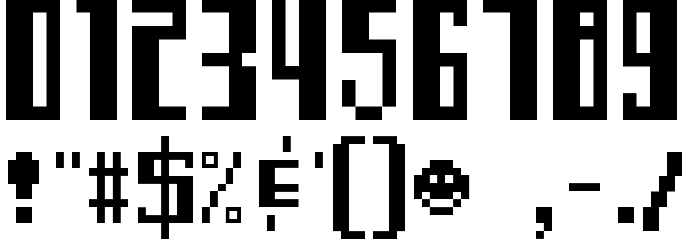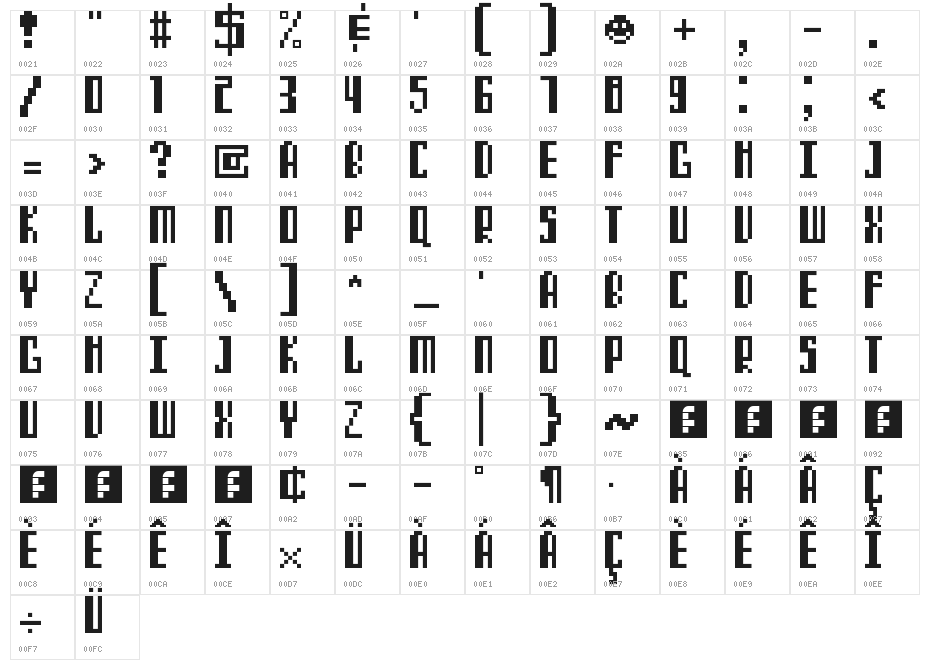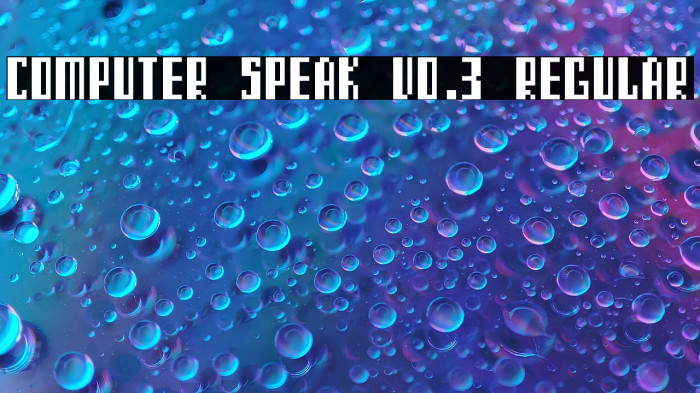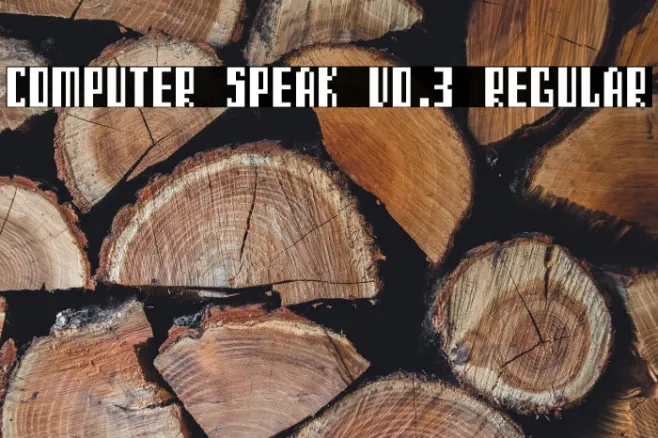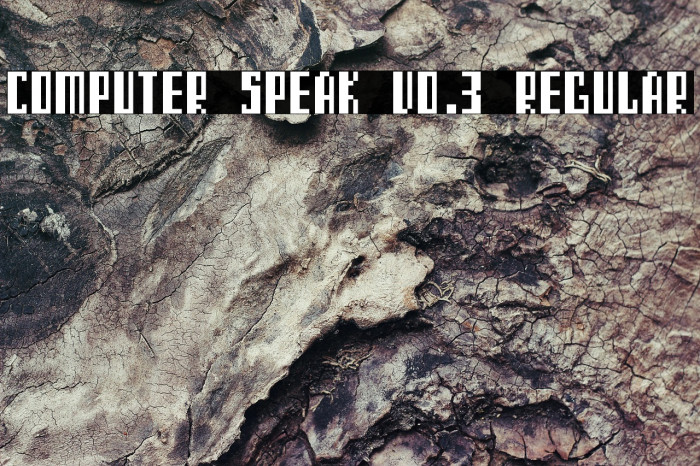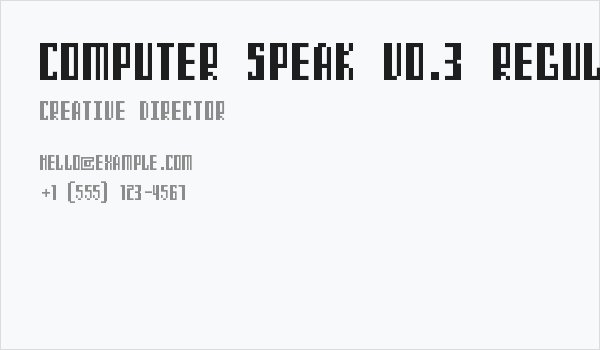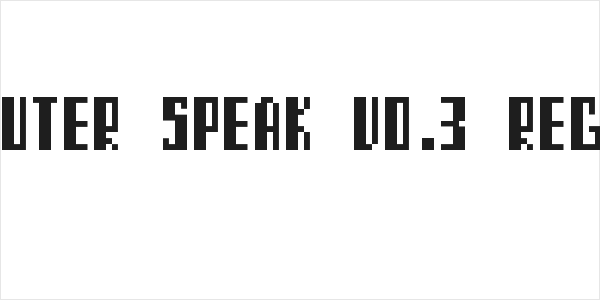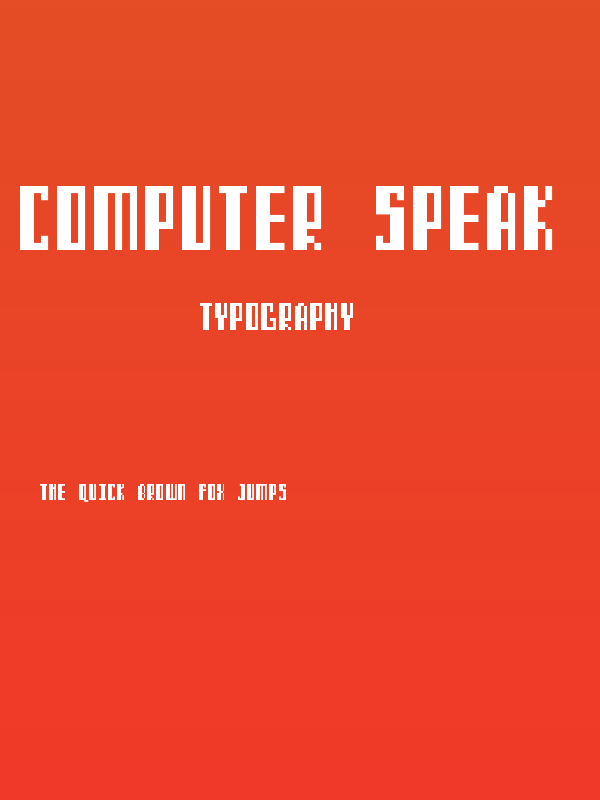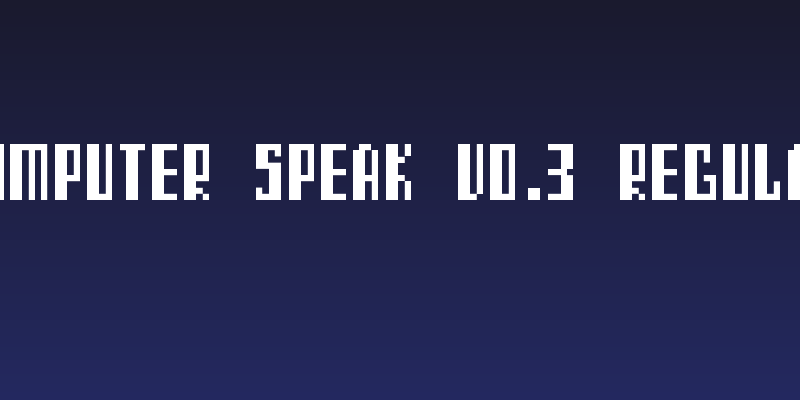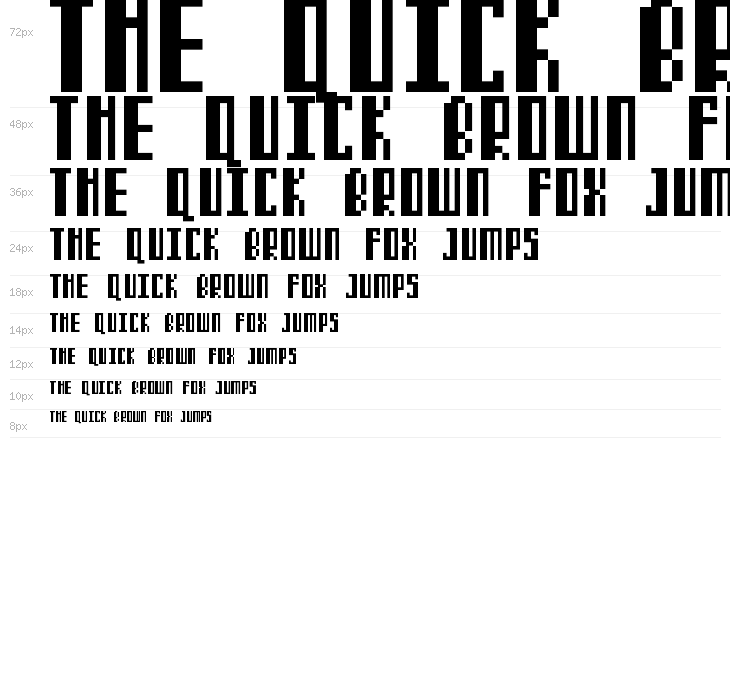
Computer Speak v0.3 Regular Font
Computer Speak v0.3 Regular Description
This font features a bold, geometric design with a distinctly digital and retro aesthetic. The characters are constructed with sharp, angular lines and a blocky appearance, reminiscent of early computer and arcade game typography. The uppercase and lowercase letters maintain a consistent height, contributing to a monospaced feel, although it is not strictly monospaced. The numerals and special characters follow the same design principles, ensuring uniformity across all glyphs. The font's style is both nostalgic and modern, making it suitable for projects that aim to evoke a sense of technological nostalgia or futuristic themes.
| Overall Style | Retro, Futuristic |
| Proposed Projects | Ideal for video game design, tech-themed posters, retro-futuristic branding, and digital art projects. |